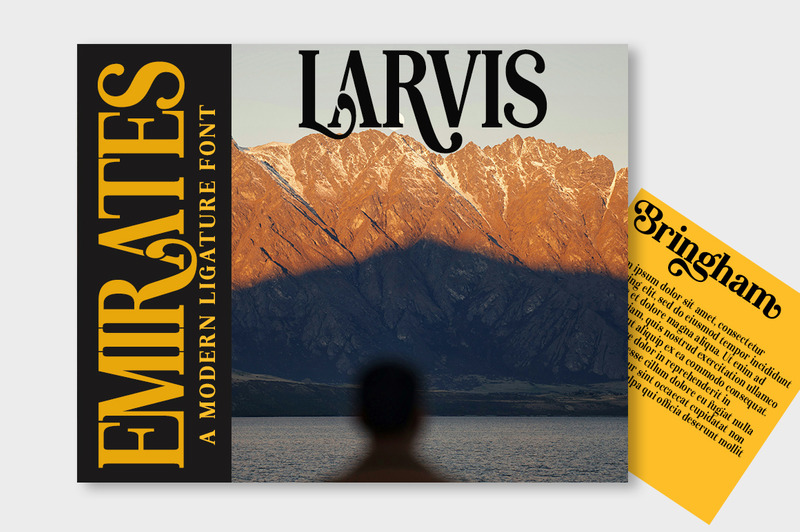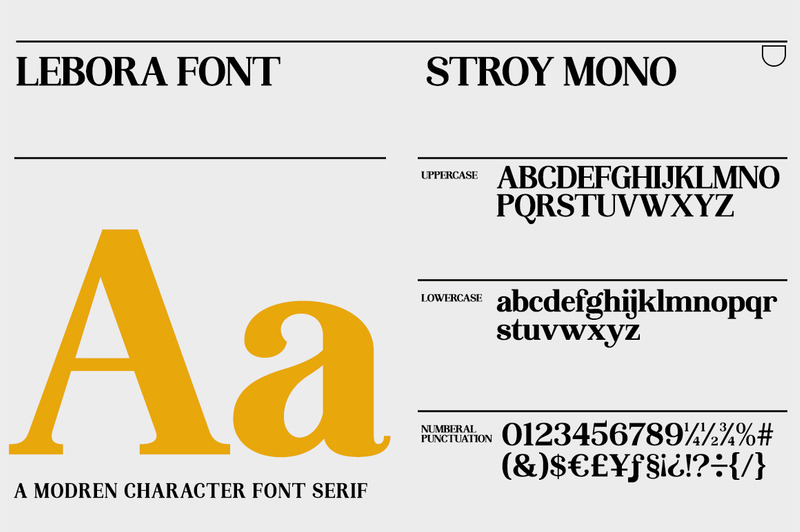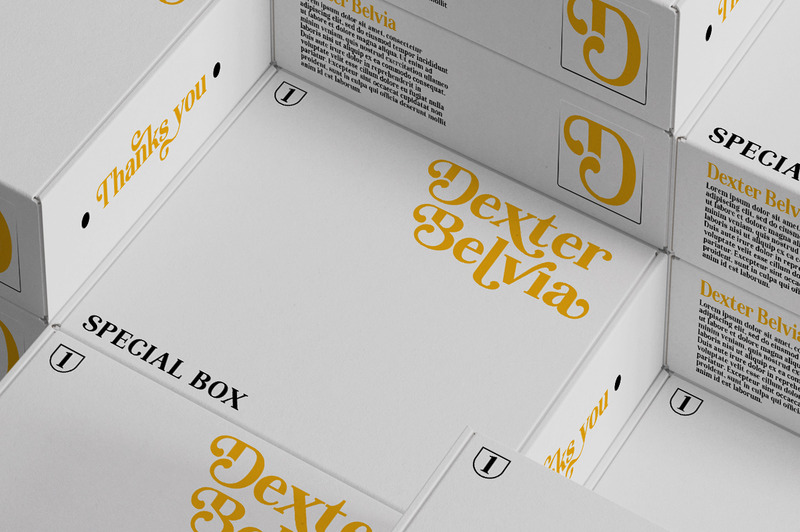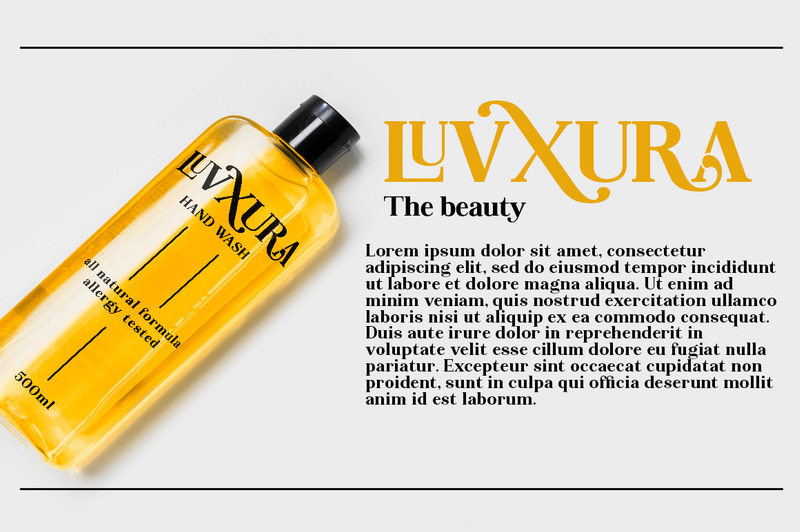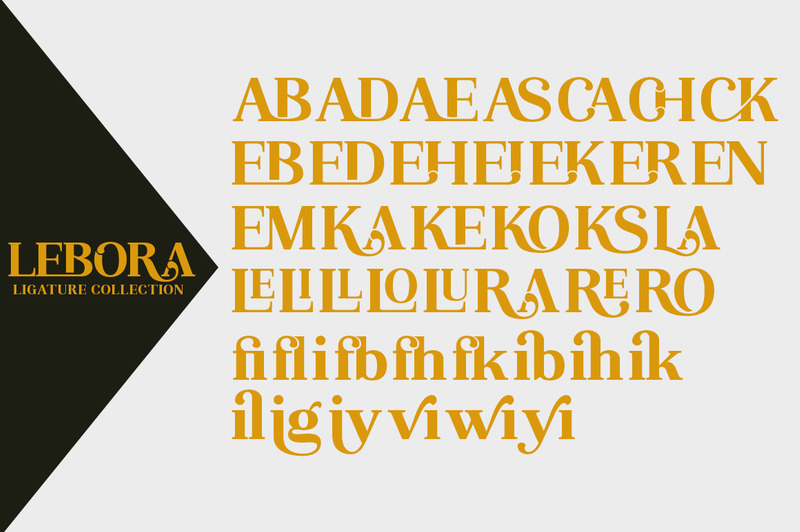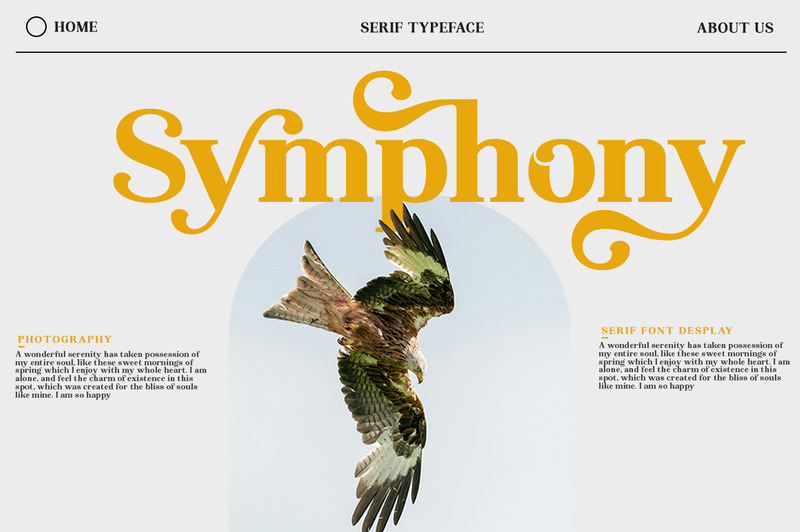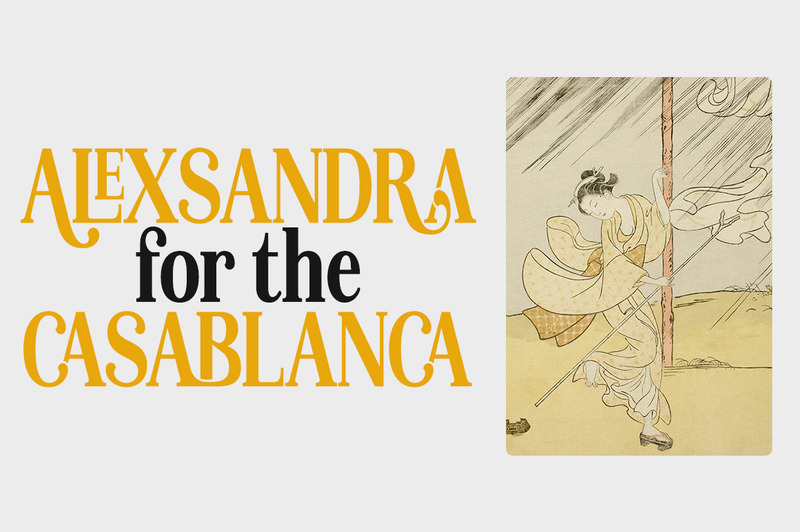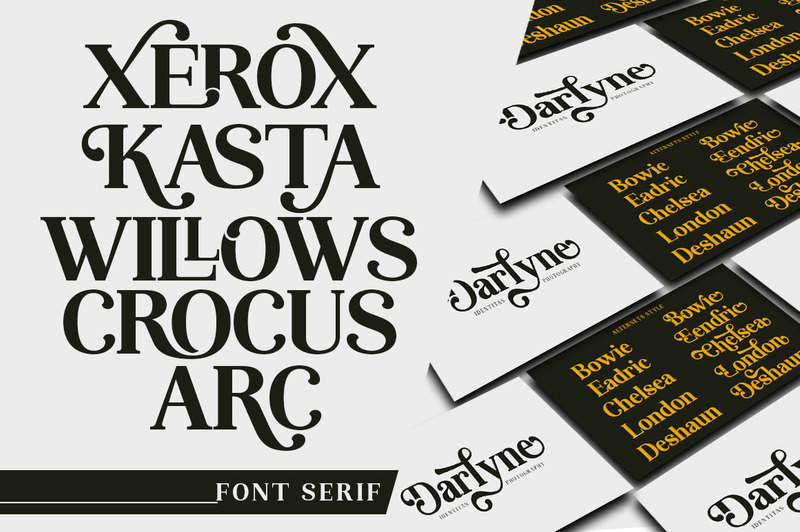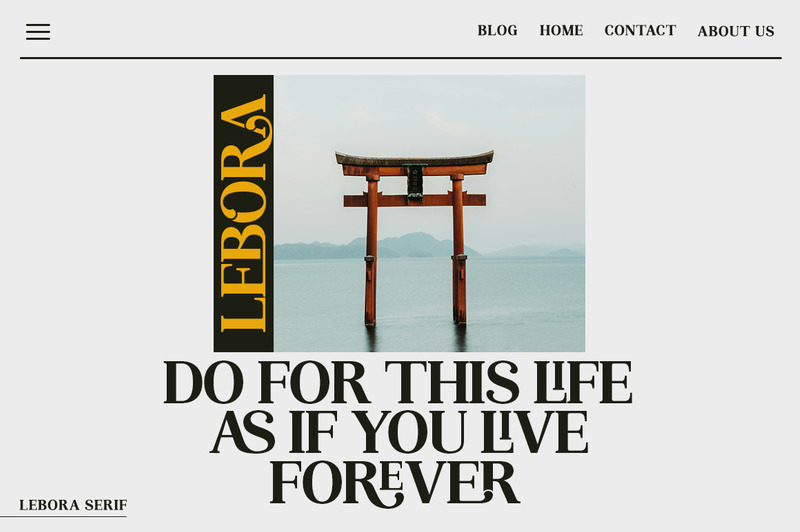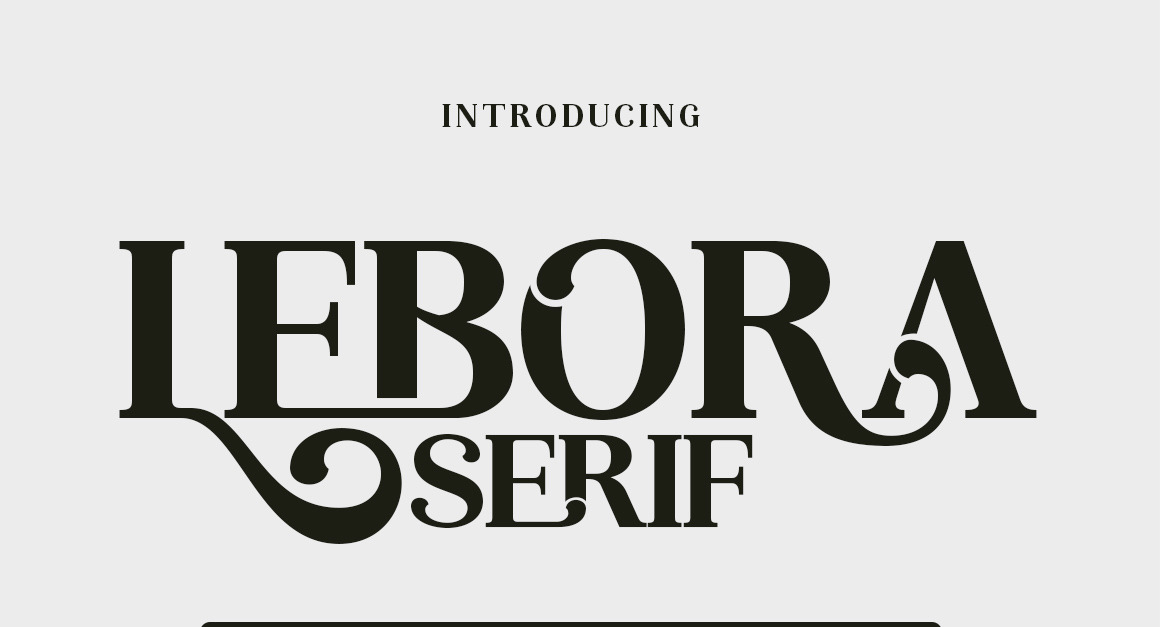
Lebora font serif display
Lebora is a modern serif font with a unique binding style, high contrast and light font perfect for feminine logo signs, fashion heads & editorial designs, branding projects, Apparel Branding, packaging, magazine titles, advertisements, T-shirts, postcards and many more. This font is PUA coded which means you can access all the glyphs and strokes easily.
Lebora Serif also includes complete sets:
Uppercase and lowercase letters
Automatic ligature
Multilingual characters
Number
punctuation